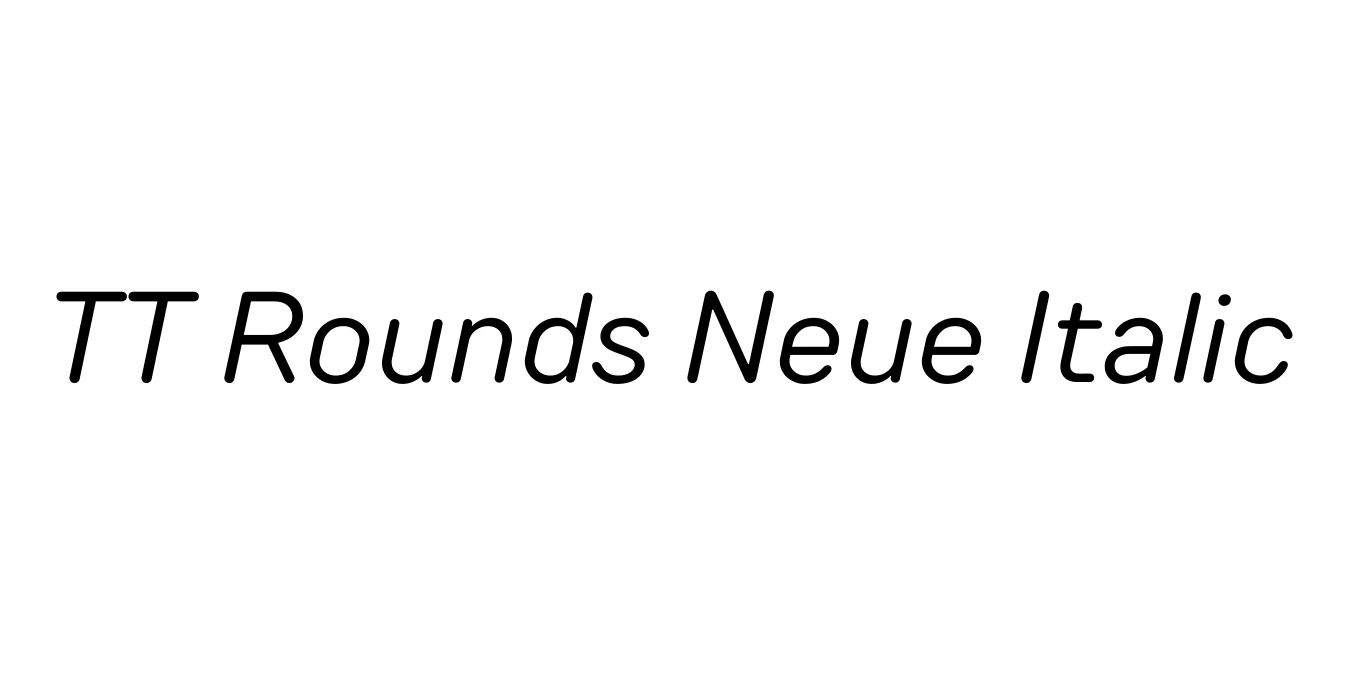
TT Rounds Neue Italic
Designed by TypeType Team
| Category | Rounded Sans Serif |
TT Rounds Neue Italic is a modern evolution of the classic TT Rounds typeface, meticulously redesigned to meet contemporary design standards. Developed by the TypeType Team, this font family is characterized by its soft, friendly personality and perfectly rounded terminals, which evoke a sense of approachability and warmth. The italic weight adds a subtle sense of motion and emphasis, making it a versatile choice for designers looking to balance technical precision with a human touch.
The typeface features a geometric foundation that ensures high legibility across both digital and print mediums. Its balanced proportions and wide range of weights allow it to function effectively in diverse environments, from bold display headlines to delicate body text. Whether used in high-tech branding or playful editorial layouts, TT Rounds Neue Italic provides a polished, professional aesthetic that remains welcoming and modern.
TT Rounds Neue Italic Best Uses
Perfect for creating a friendly and approachable corporate identity.
High legibility makes it ideal for mobile app buttons and interface elements.
Soft edges work exceptionally well for consumer goods and organic products.
The rounded shapes are inviting and safe for younger audiences.